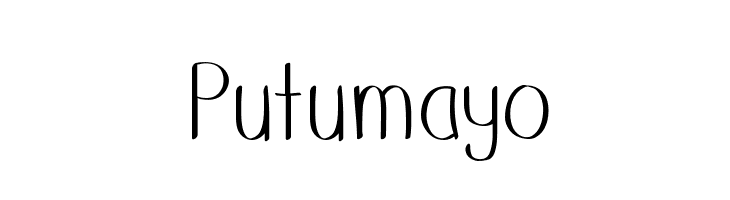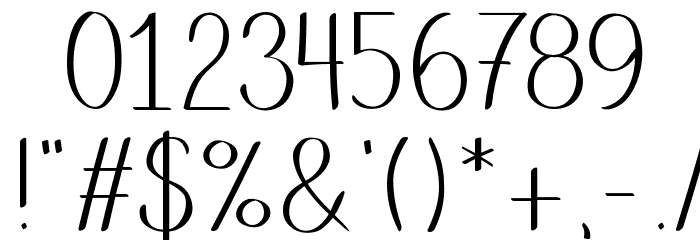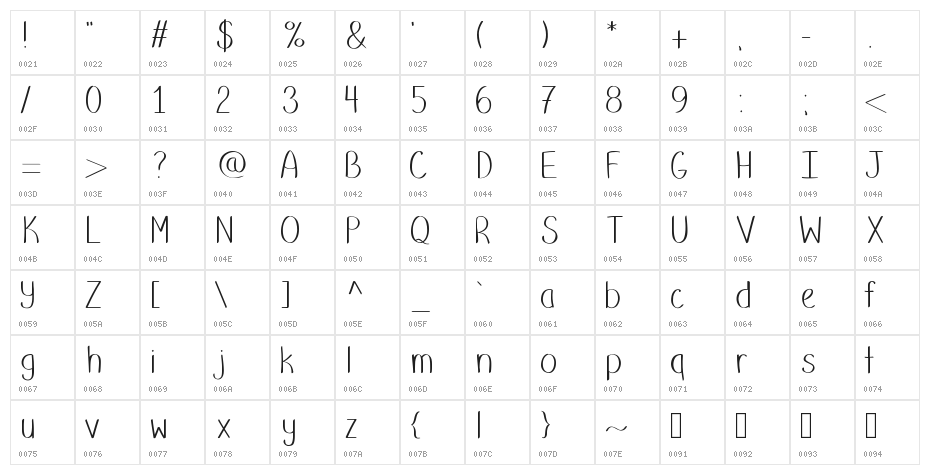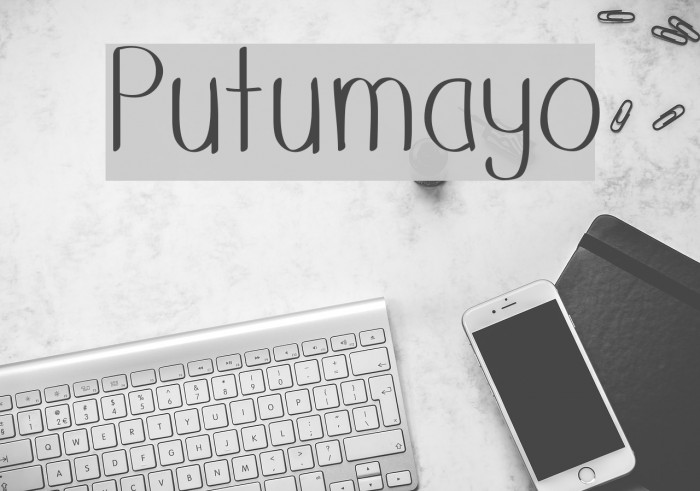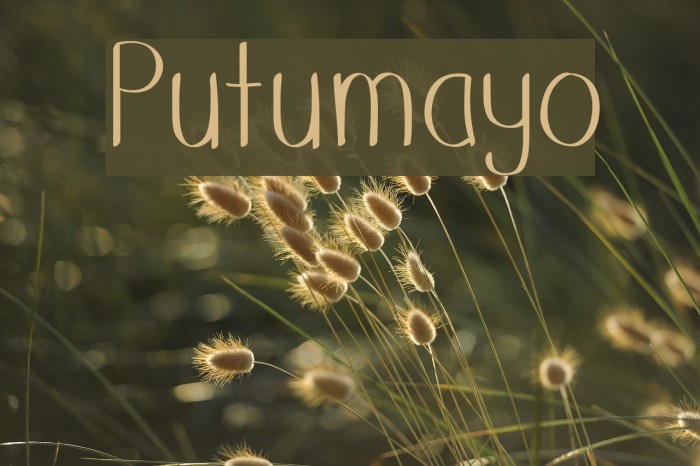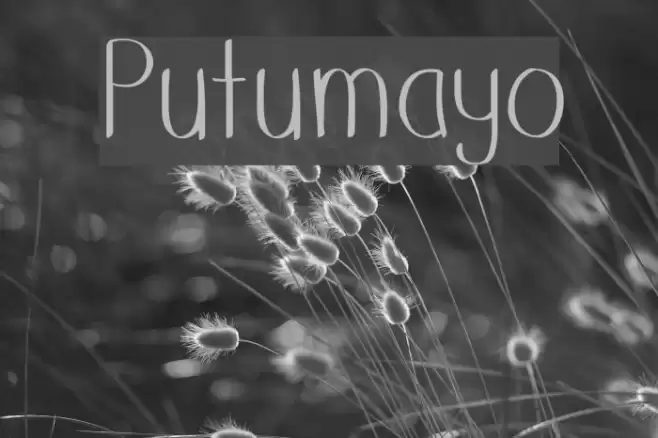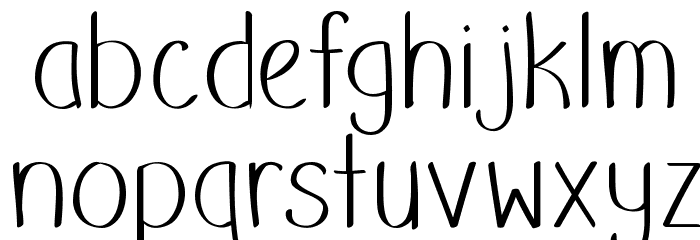
Putumayo Font
Putumayo Description
This font features a playful and whimsical style with a handwritten appearance. The characters are tall and slightly narrow, with a consistent stroke width that gives it a clean and modern look. The uppercase letters have a unique charm, with slight variations in line curvature that add to its informal and friendly vibe. The lowercase letters maintain a cohesive flow, enhancing readability while retaining the font's distinct personality. Numbers and special characters are designed to match the overall aesthetic, making it versatile for various design needs.
| Proposed Projects | Ideal for children's books, greeting cards, playful branding, and casual invitations. |